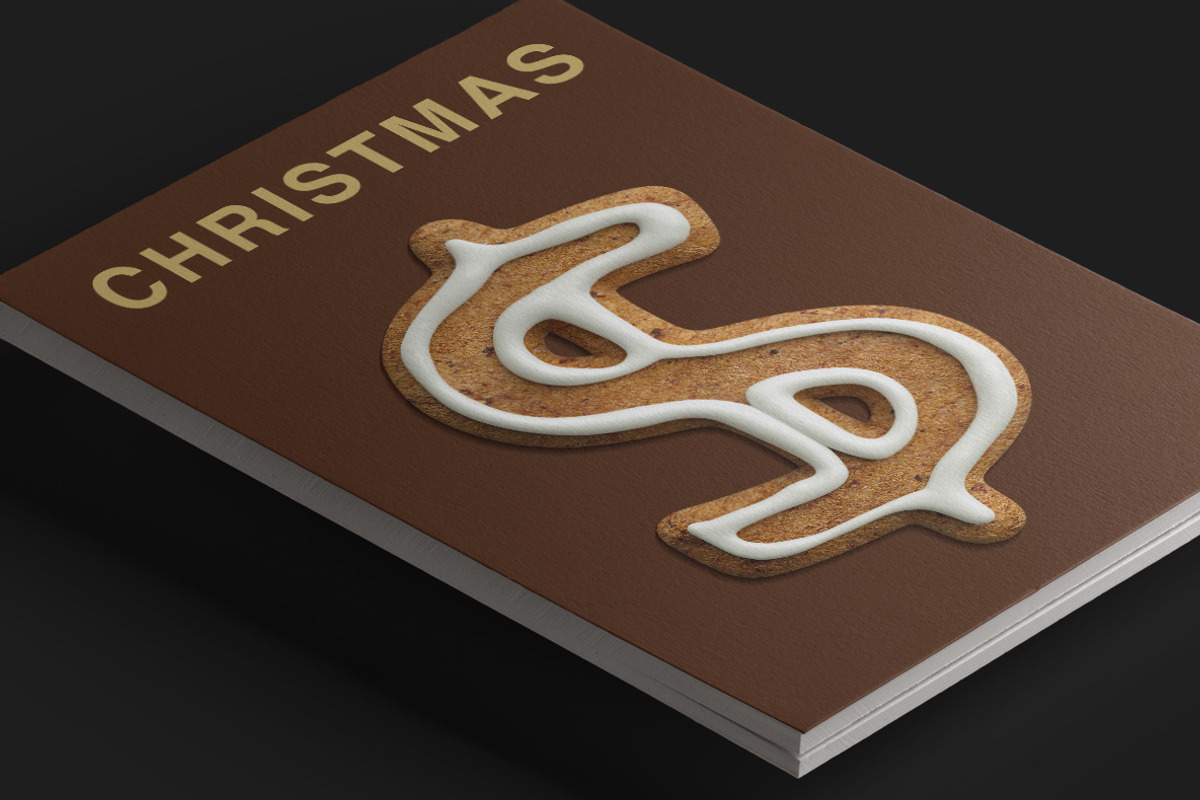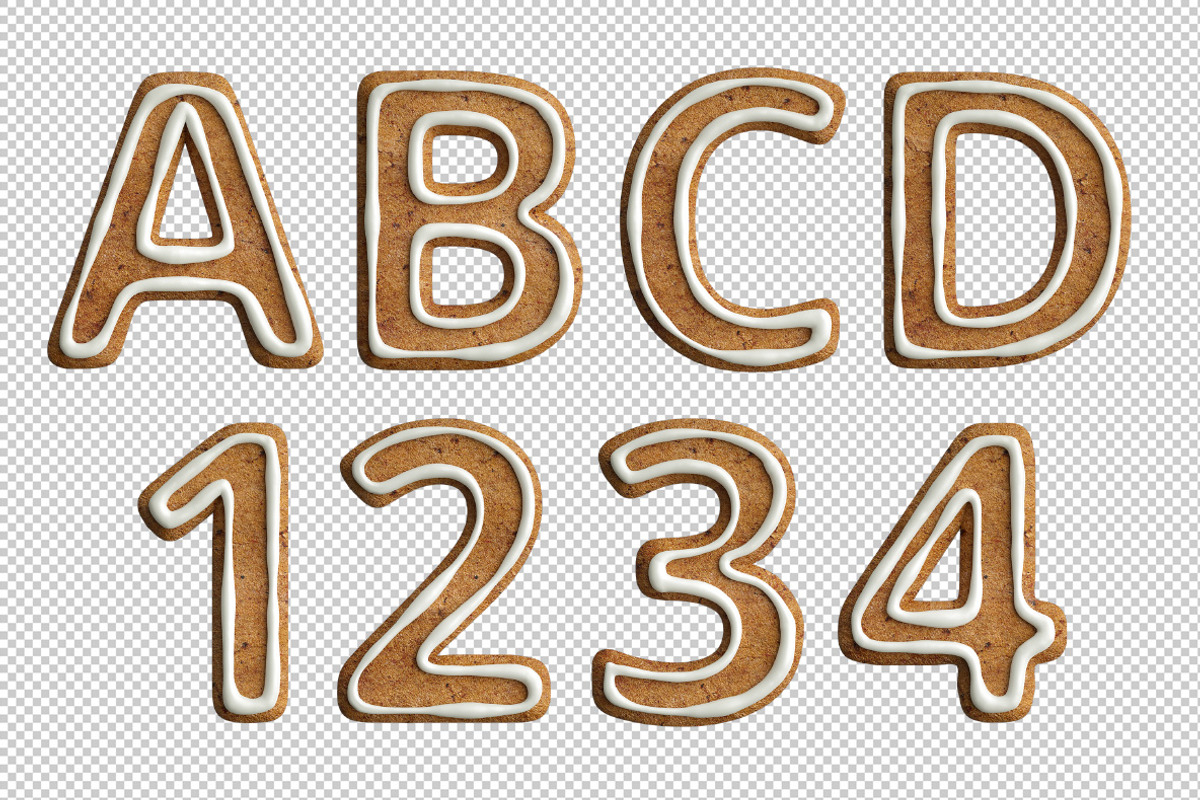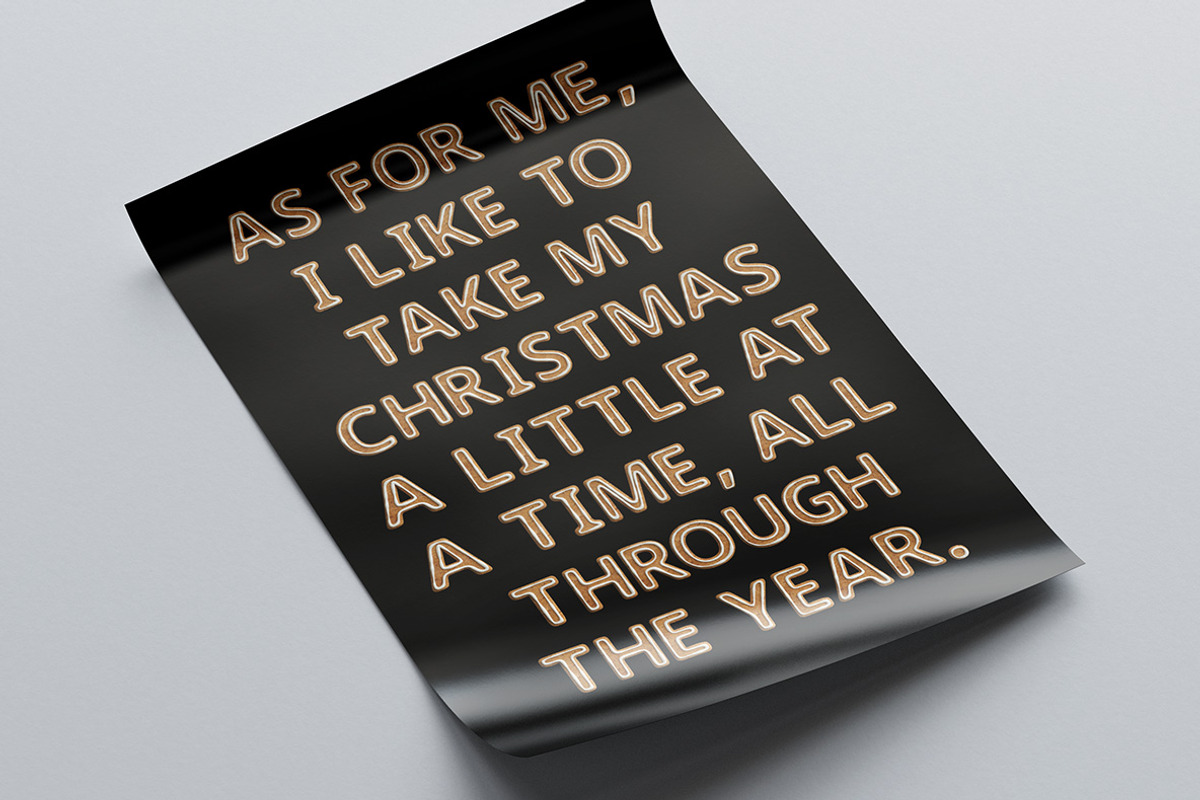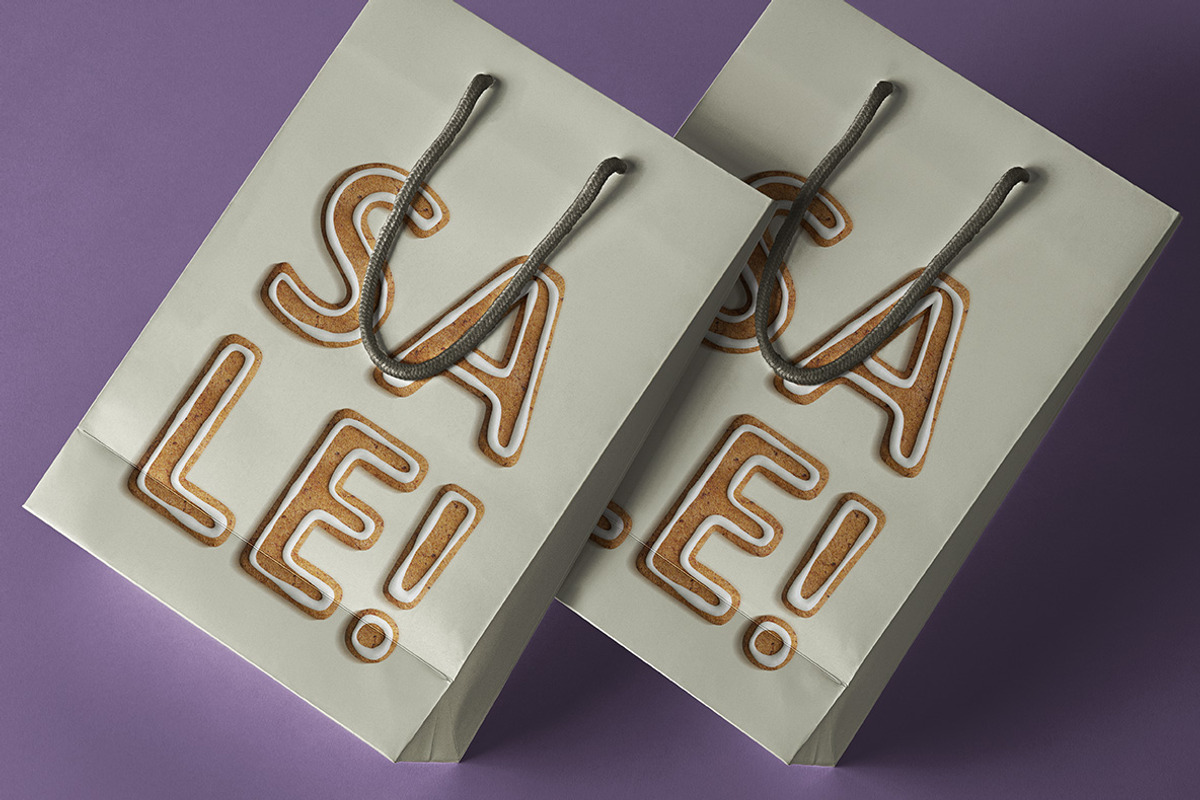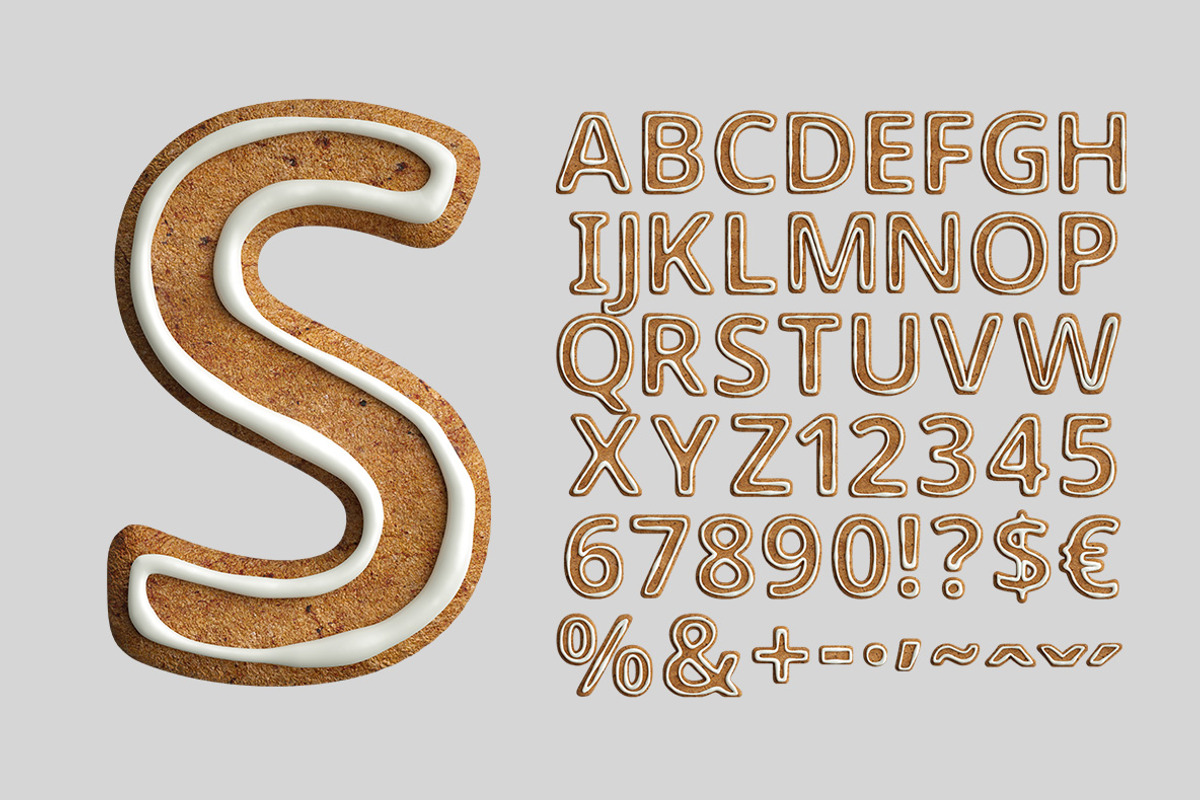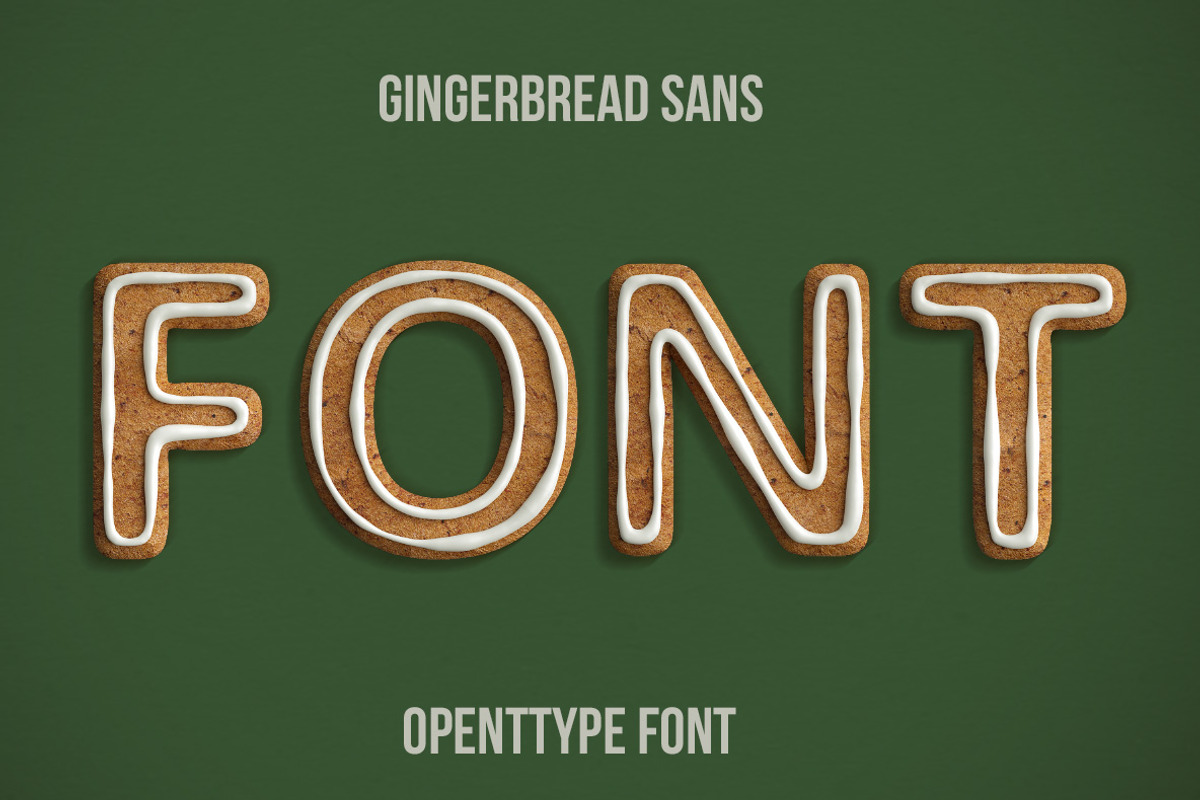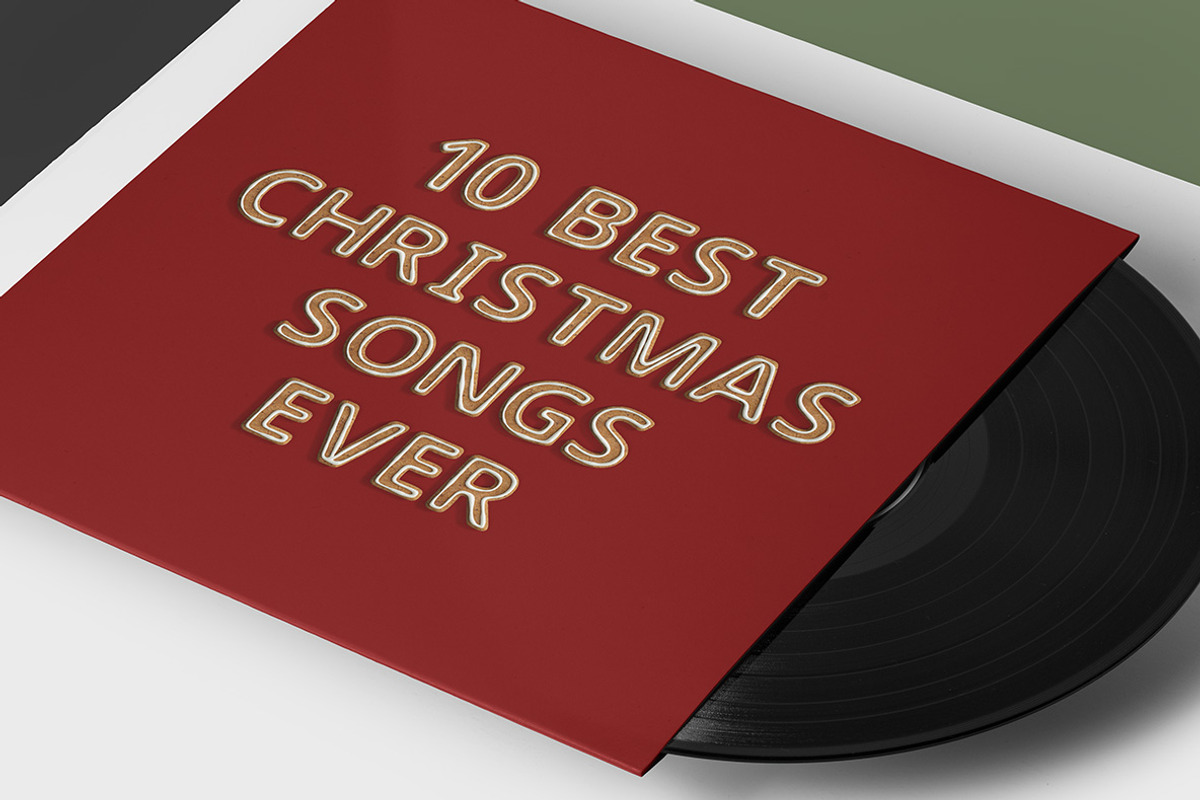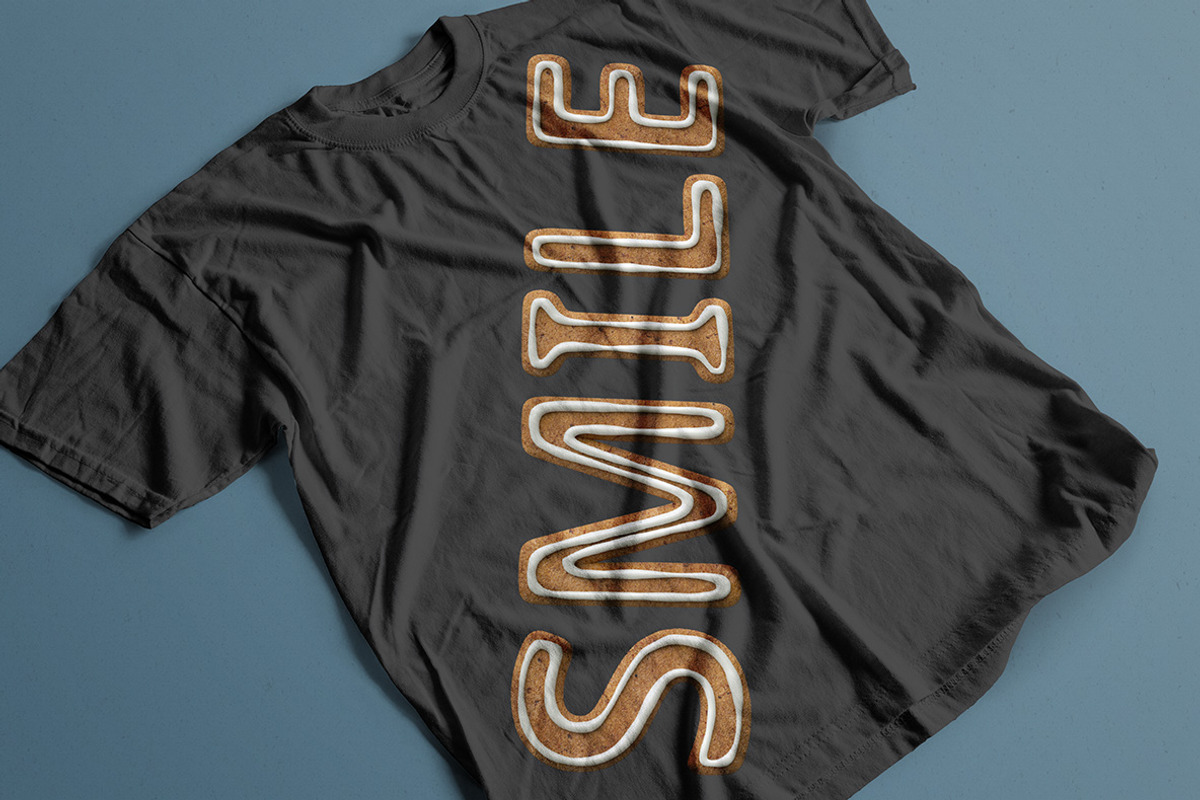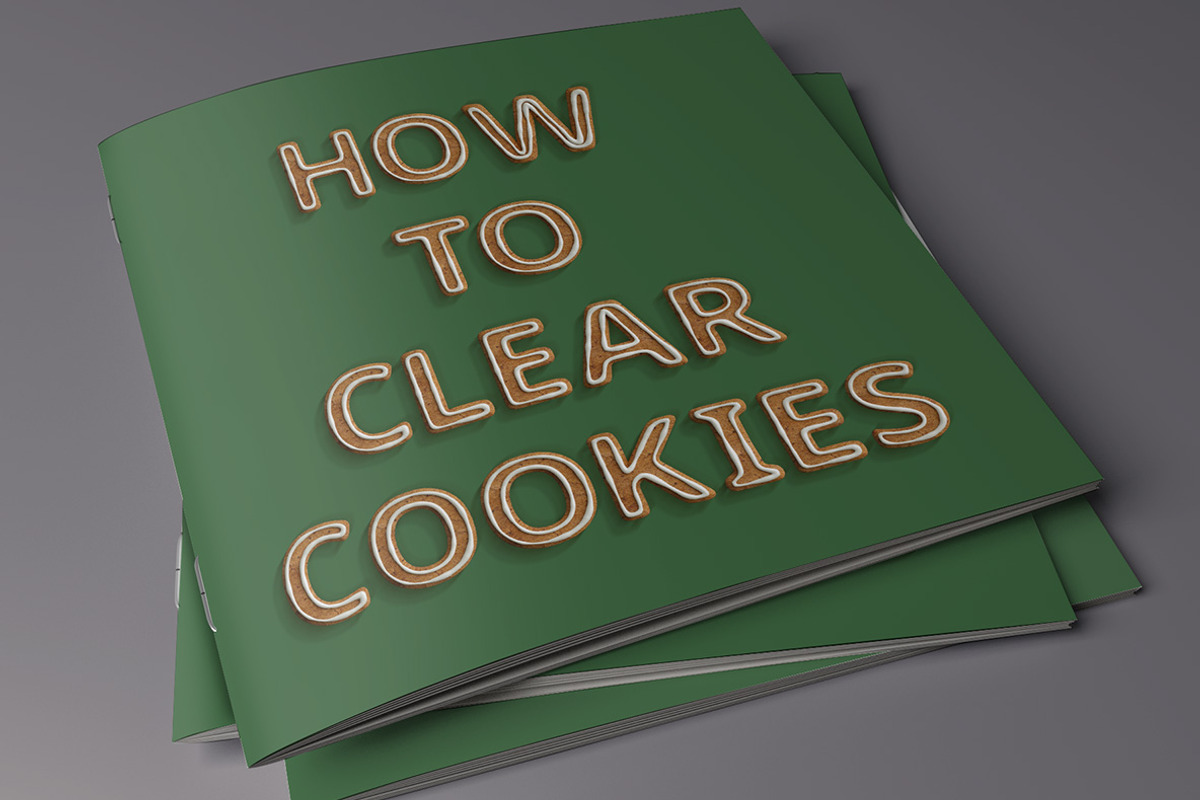
Gingerbread Sans Font
Gingerbread Sans SVG Font. A high definition OpenType-SVG font built-in 3D. Contains uppercase characters, numerals and basic punctuation. (Draw height roughly 800 pixels). All letters and glyphs that comprises this font you can see on the preview.
Letters : A B C D E F H I J L L M N O P Q R S T U V W X Y Z Numbers : 0 1 2 3 4 5 6 7 8 9 Others : ! ? $ & % + - .